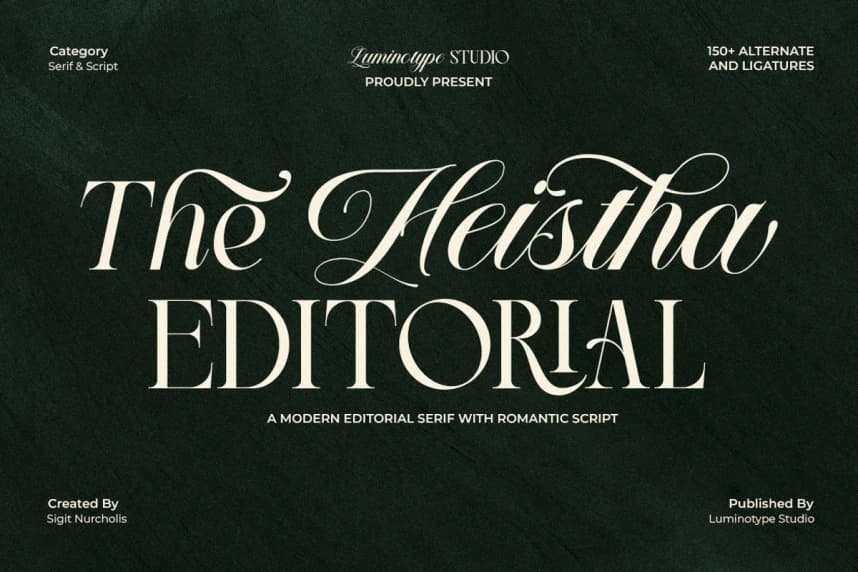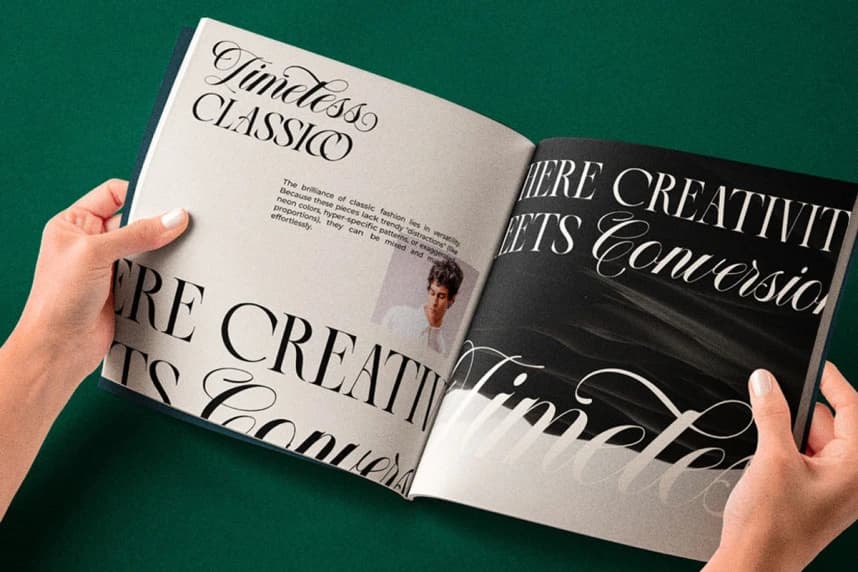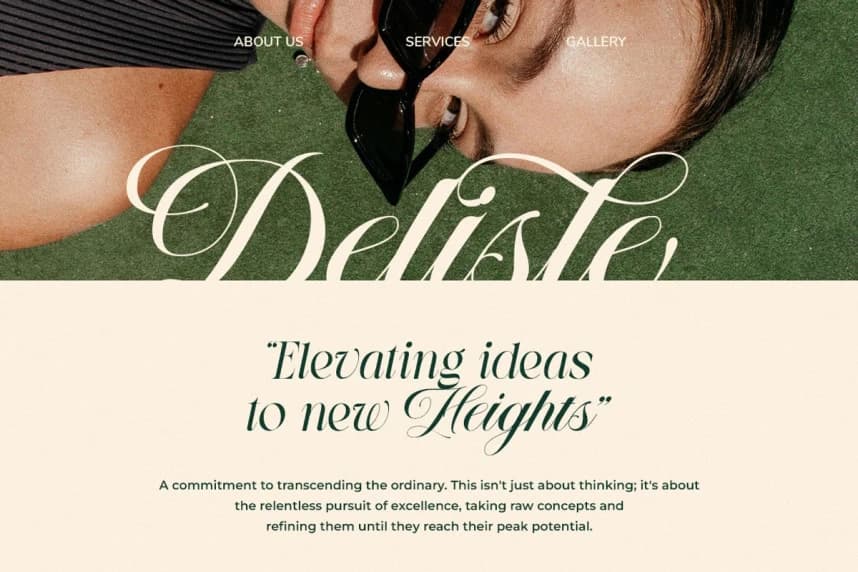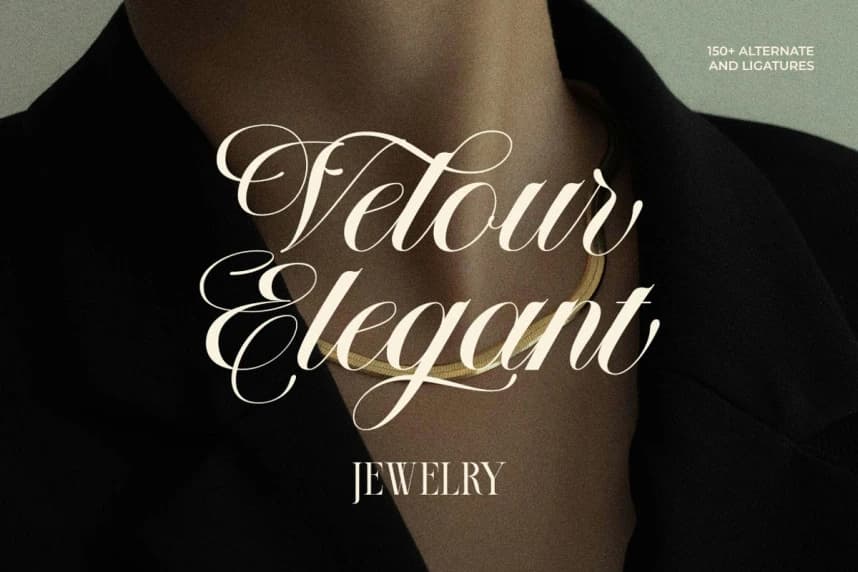
LT The Heistha Editorial Font Duo
LT The Heistha Editorial Font Duo, a stunning font duo that embodies timeless sophistication. By perfectly pairing a refined, modern serif font with a sweeping, elegant script, this collection is meticulously crafted to infuse your work with a premium